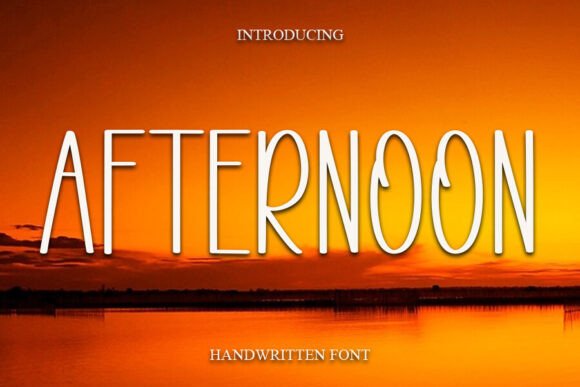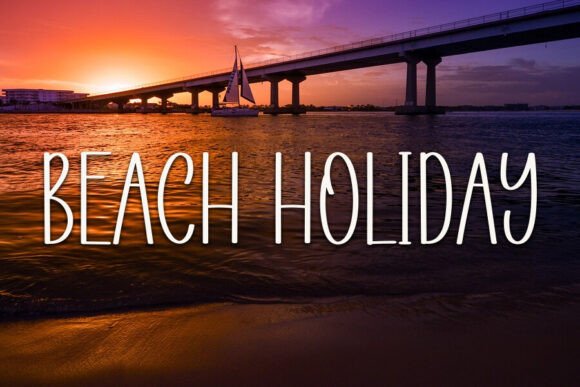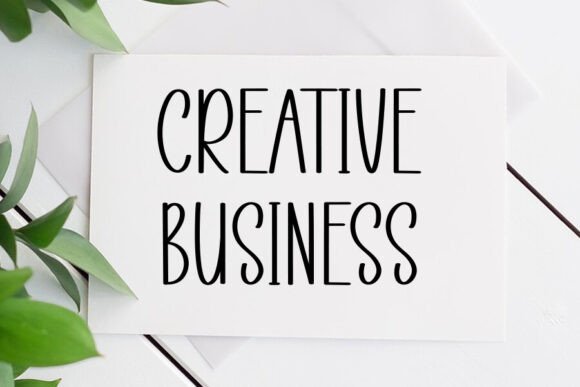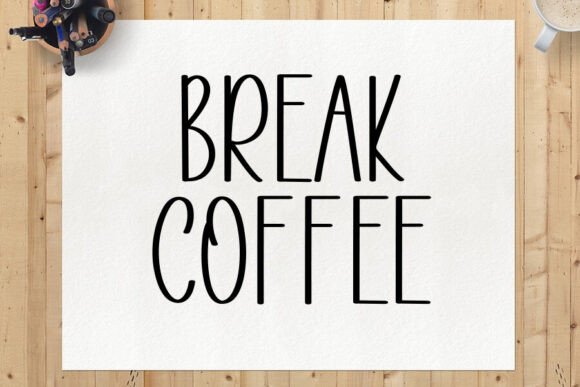
Afternoon Font
About the Afternoon Font
The Afternoon Font offers a perfect balance of form and function for your design needs. Afternoon is a trendy handwritten font with a contemporary atmosphere and impeccable form, inspired by timeless classic calligraphy. It will add elegance and class to any of your design projects.
Afternoon Font excels in applications requiring a touch of refined casualness. It’s ideal for short headlines, logos, and branding elements where its elegant handwritten style adds a personal touch without sacrificing readability. Consider using it for invitations, short quotes on social media graphics, or packaging for premium products. However, its script nature makes it unsuitable for body text or lengthy passages. Small sizes also lose legibility.
For optimal visual balance, pair Afternoon Font with a clean sans-serif like Lato for body copy, or a geometric sans-serif like Futura for a more modern feel. A subtle serif like Garamond can also work well to provide a classic counterpoint to its contemporary hand-drawn aesthetic. The key is to choose a font that offers strong contrast in form to maintain visual hierarchy and prevent visual clutter.
Afternoon Font projects a sophisticated yet approachable personality; it’s elegant but not overly formal, lending itself well to brands that value quality and style without appearing stuffy or inaccessible.
Afternoon Font Usage Examples
Afternoon Font Example